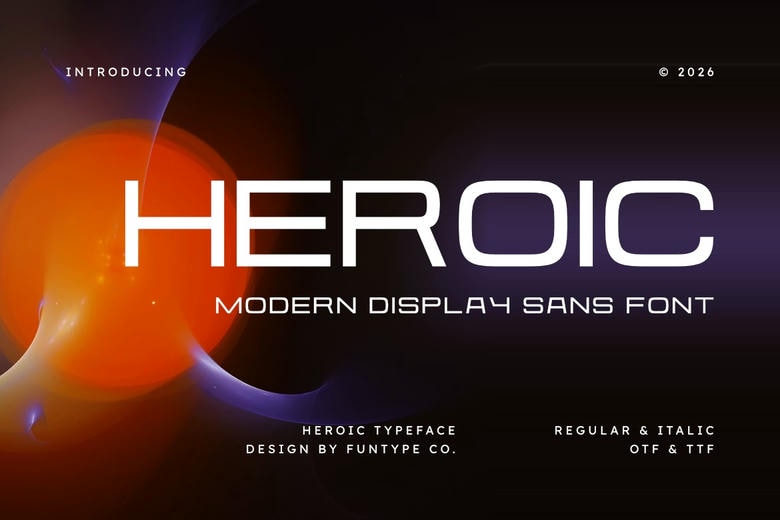
Heroic Font
Heroic is a bold, modern sans display font with a tech-inspired look that stands out in any setting. With sleek geometric shapes and sharp lines, it works well for bold headlines, tech logos, modern ads, and movie posters that need to grab attention.
Heroic’s bold style adds a fresh, modern edge to your designs. You can use it in any design software since it comes in OTF and TTF formats. Try Heroic and see how it changes your next project.
Heroic Sans Serif Font